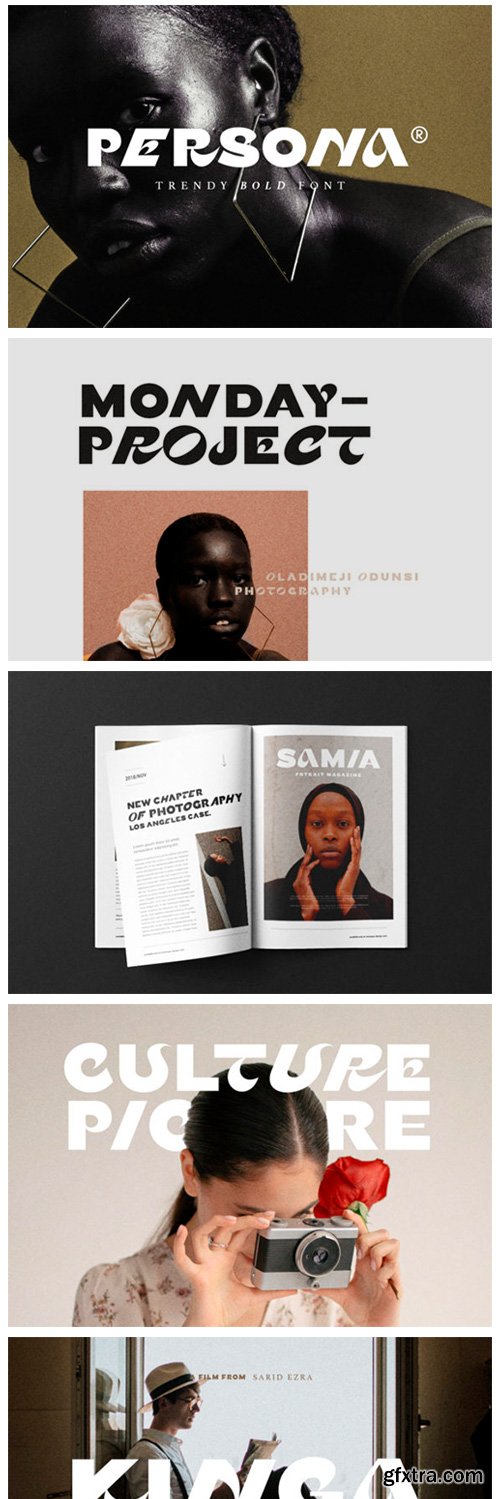
Persona Font
Persona is a bold and trendy looking display font. No matter the topic, this font will be an incredibly asset to your fonts’ library, as it has the potential to elevate any creation.